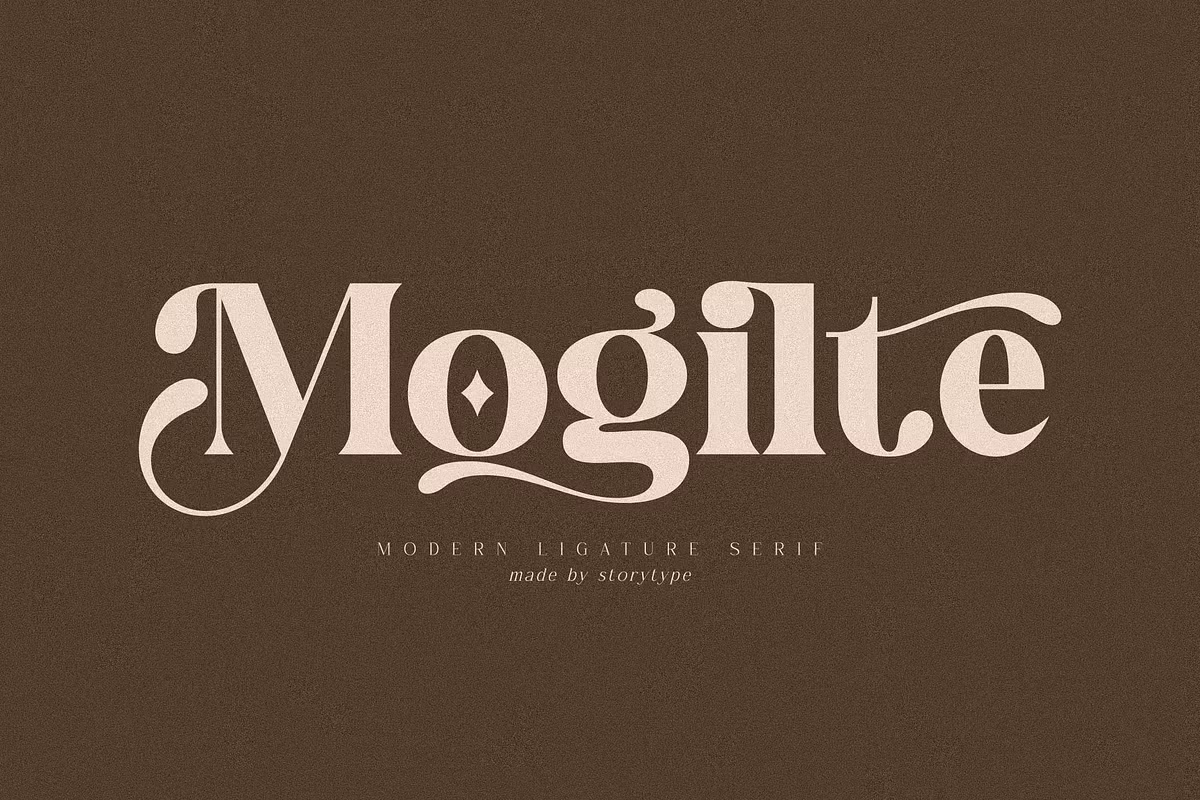
Mogilte Modern Ligature Serif Free Download
Mogilte Modern Ligature Serif Font Free Download
Please note, to use this font for commercial purposes, you must purchase the full version. Mogilte Modern Ligature Serif Font is a sophisticated and stylish serif font that combines modern ligatures with classic design elements. Its unique letterforms and smooth transitions make it perfect for high-end branding, editorial projects, and stylish logos. Whether you're working on a luxury brand or designing an elegant website, Mogilte brings an upscale, refined look to any project. Test it out and enjoy free download access for personal use. Get a taste of its beauty with Mogilte Modern Ligature Serif Font Free Download before purchasing the commercial version. Elevate your design projects with the distinctive charm of Mogilte.